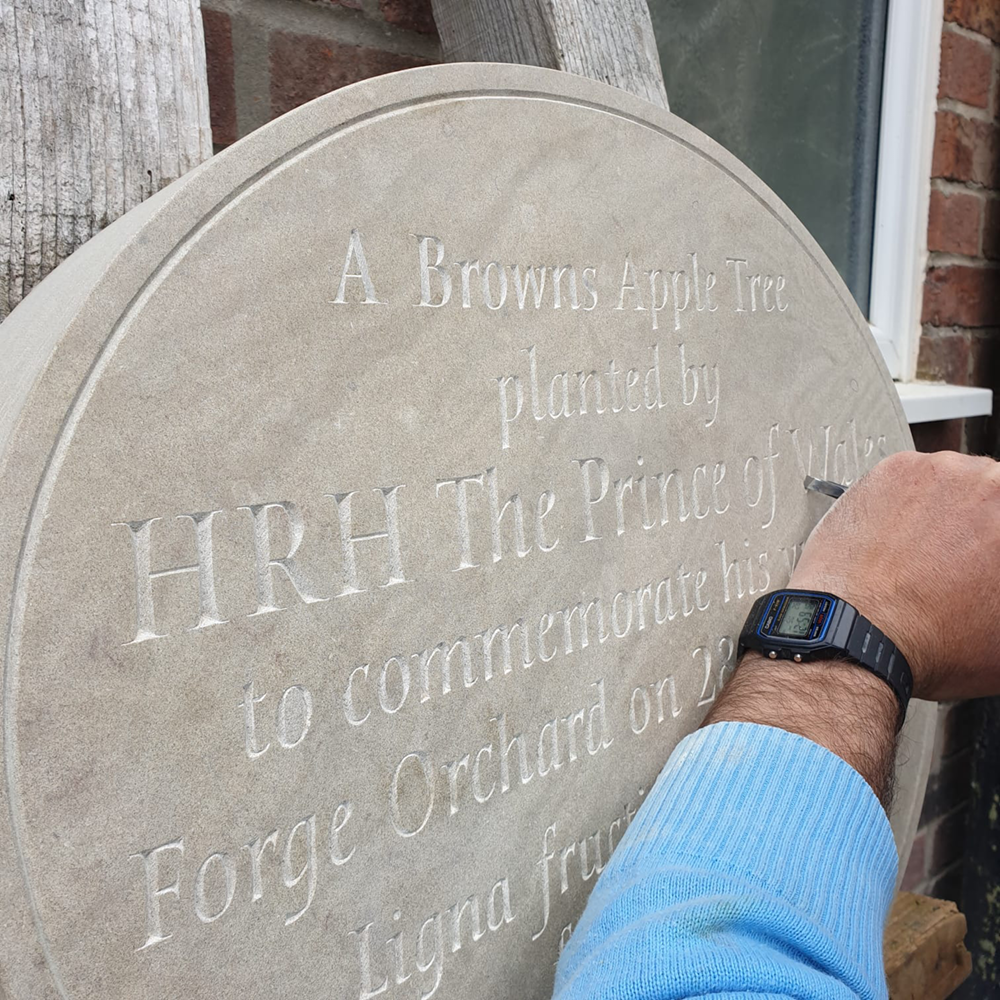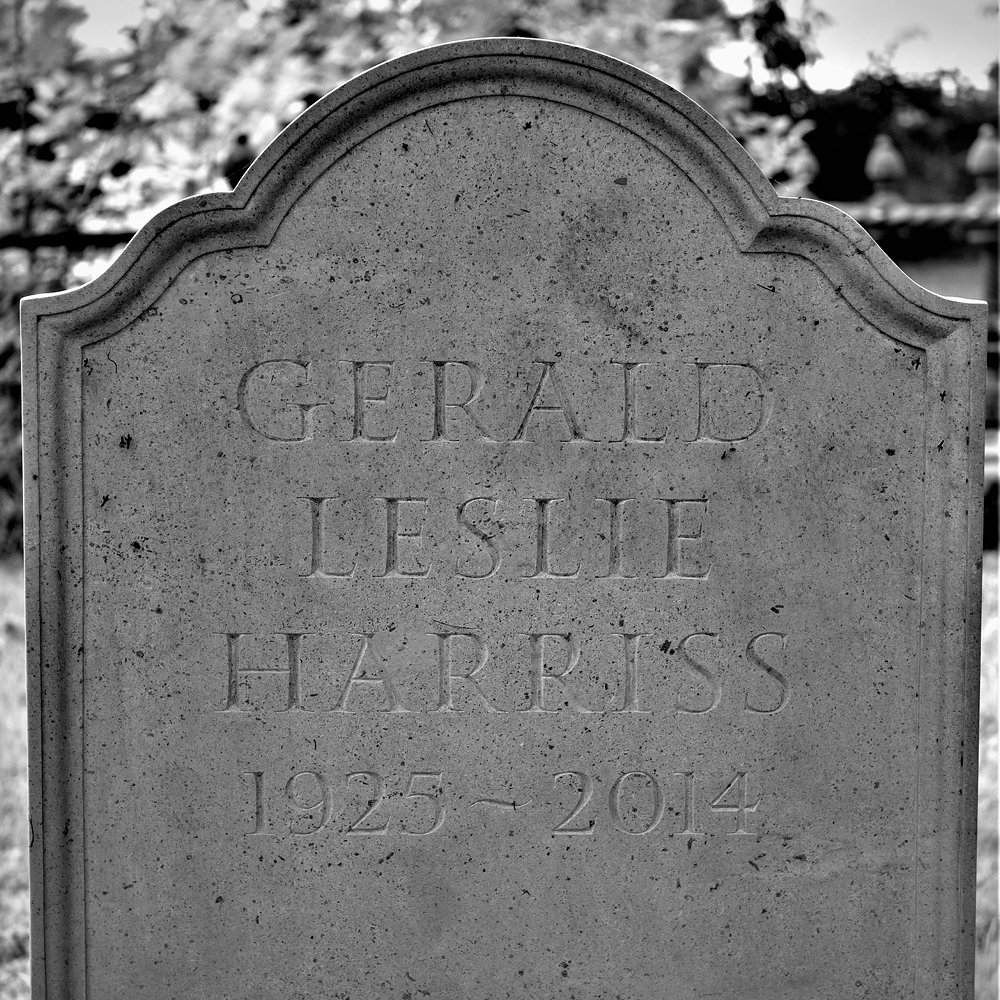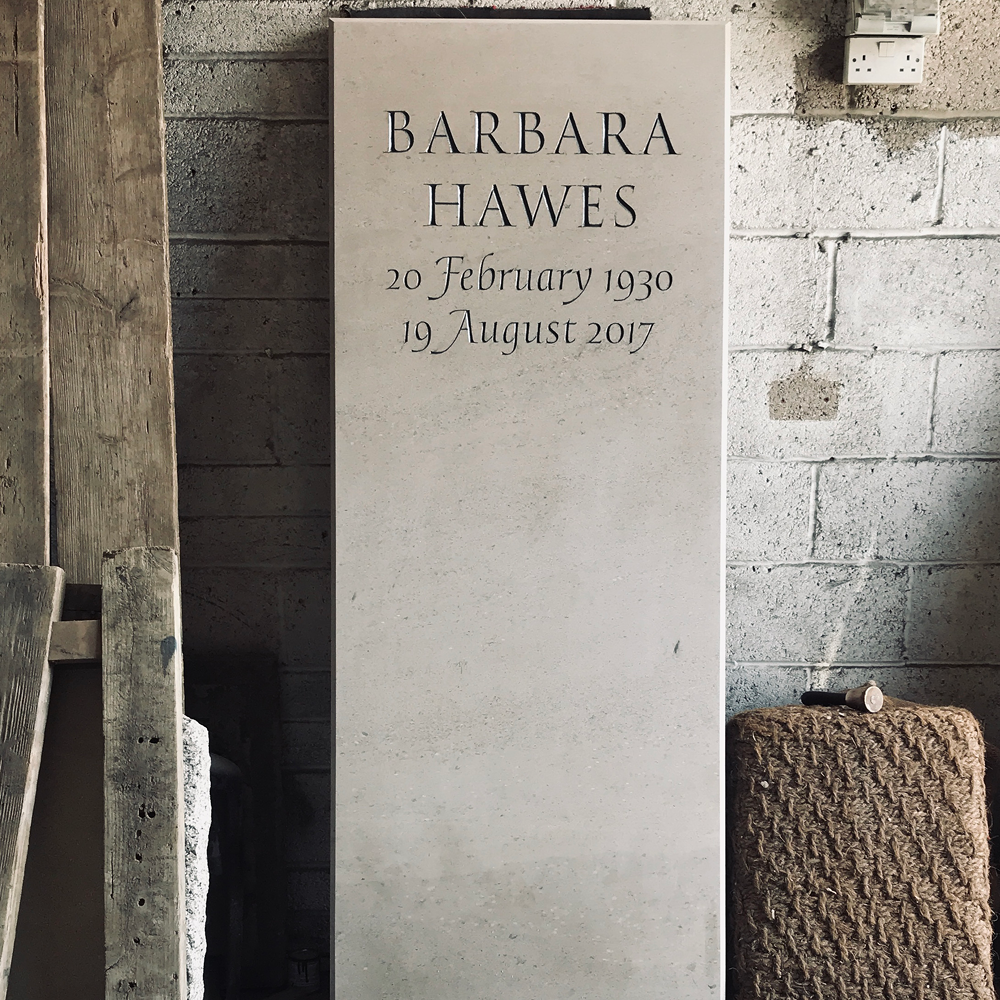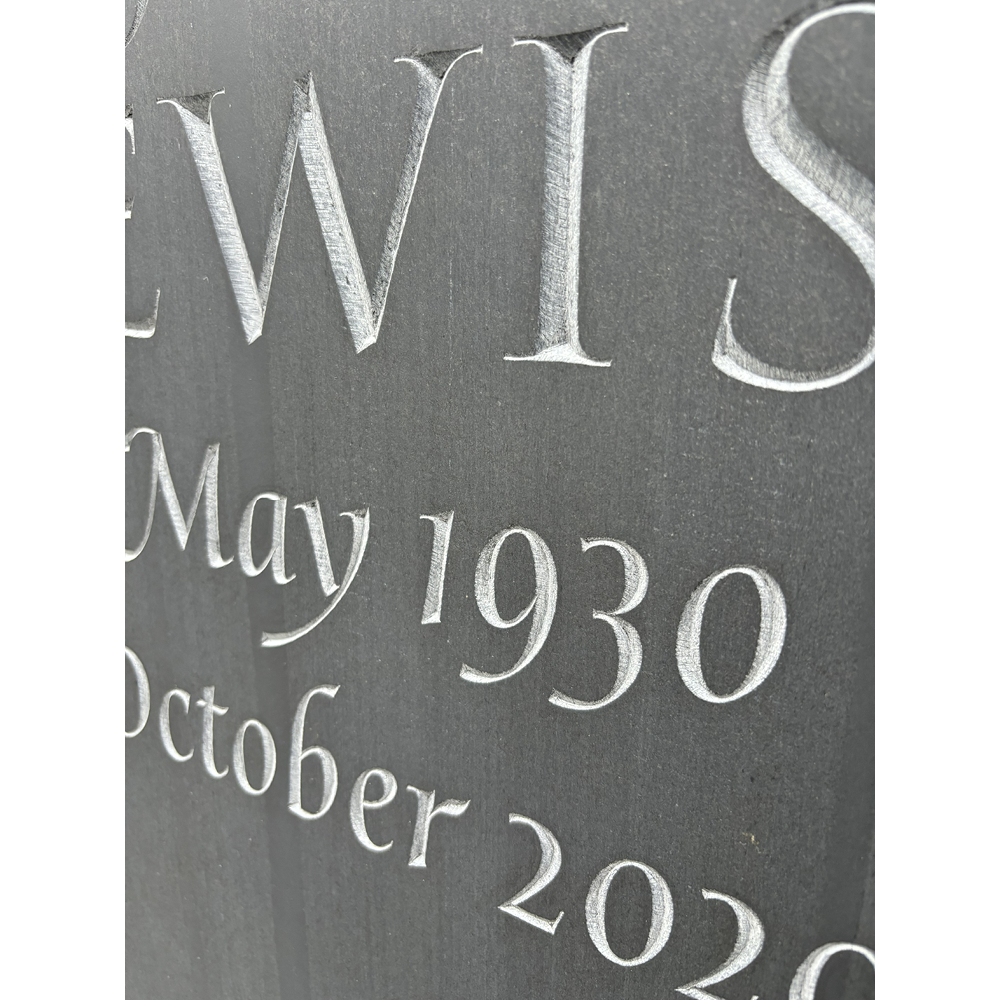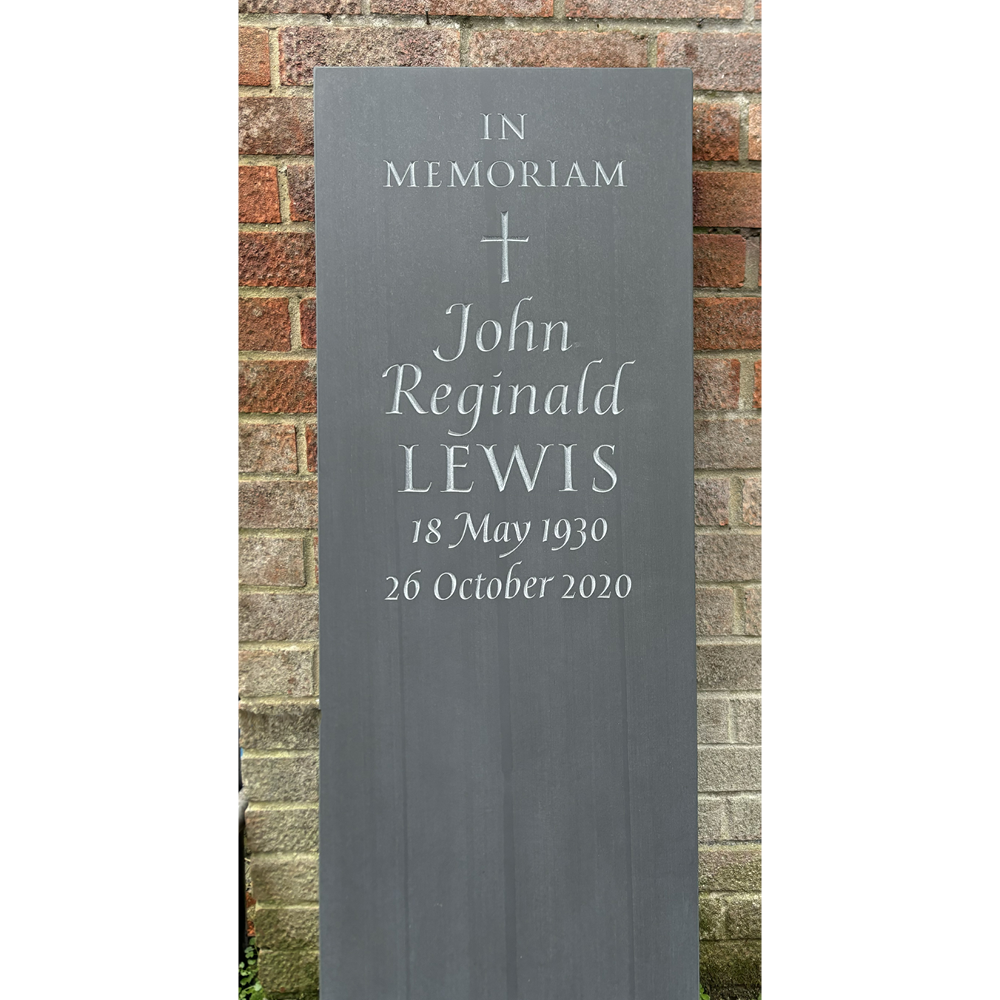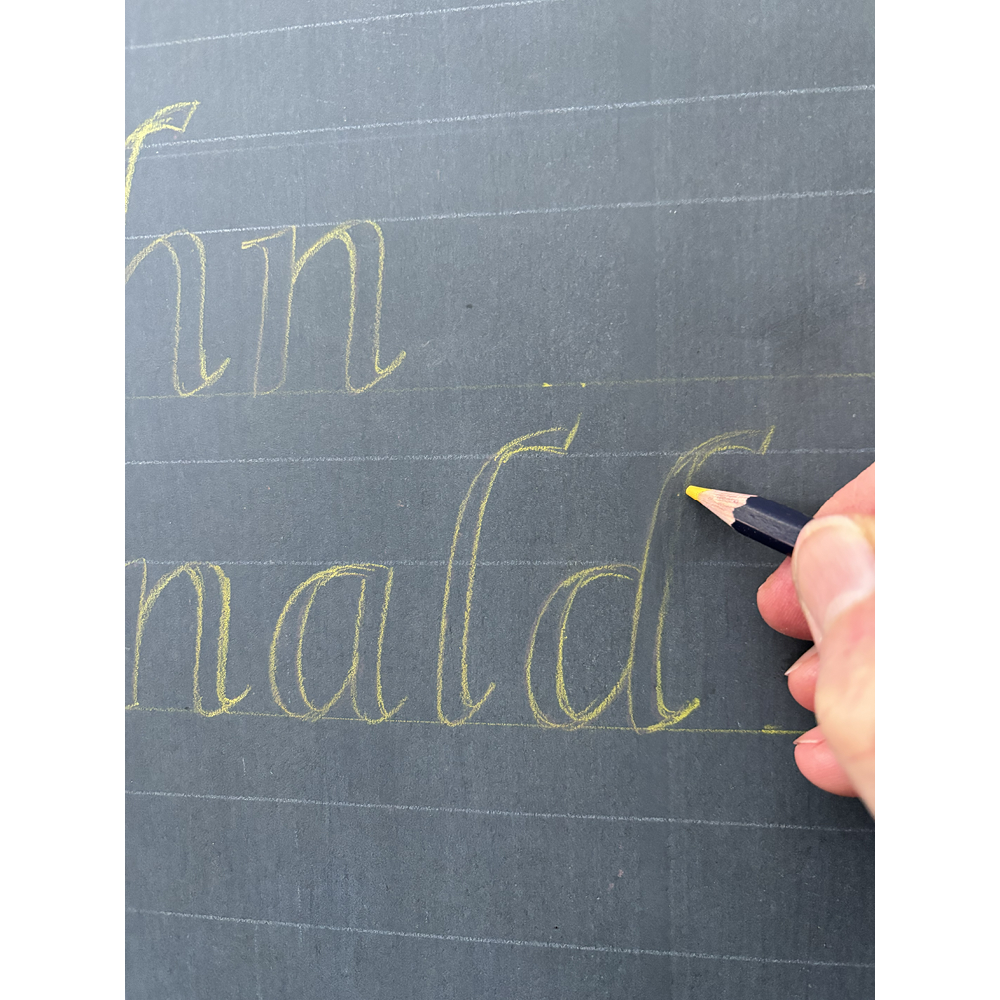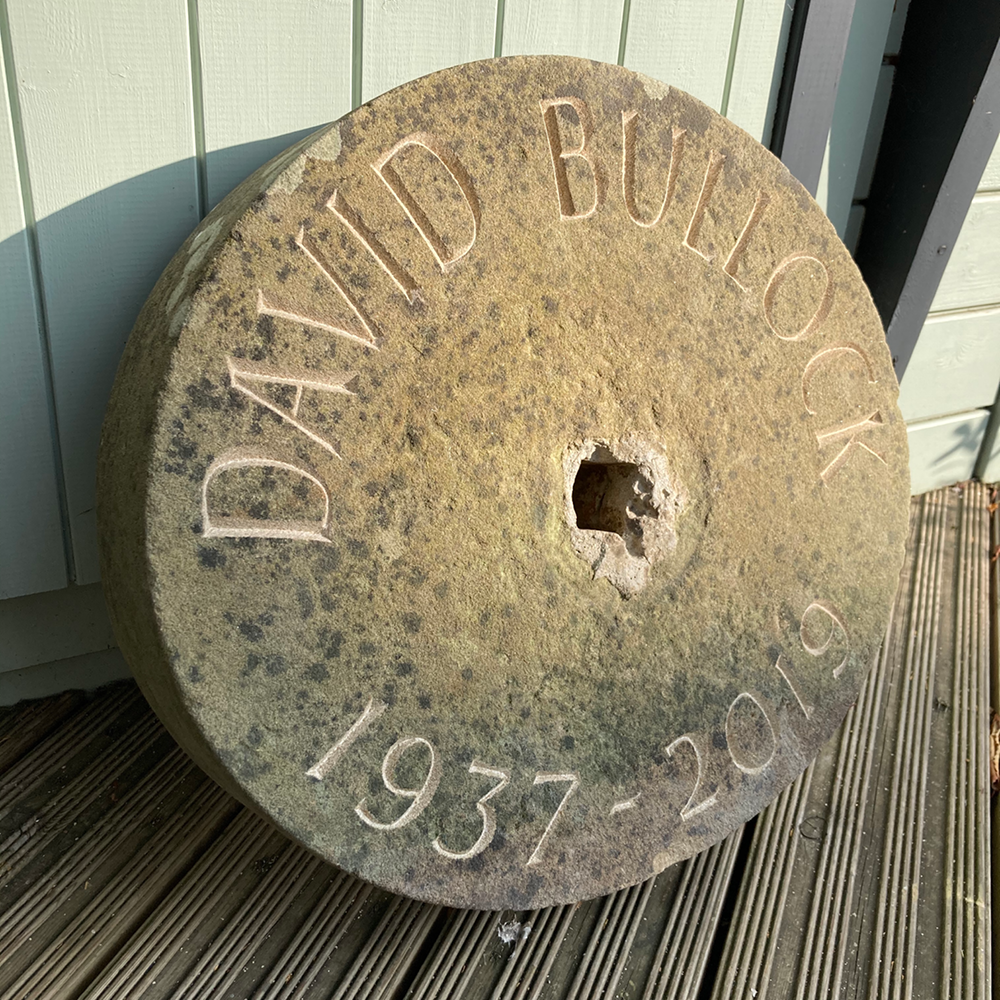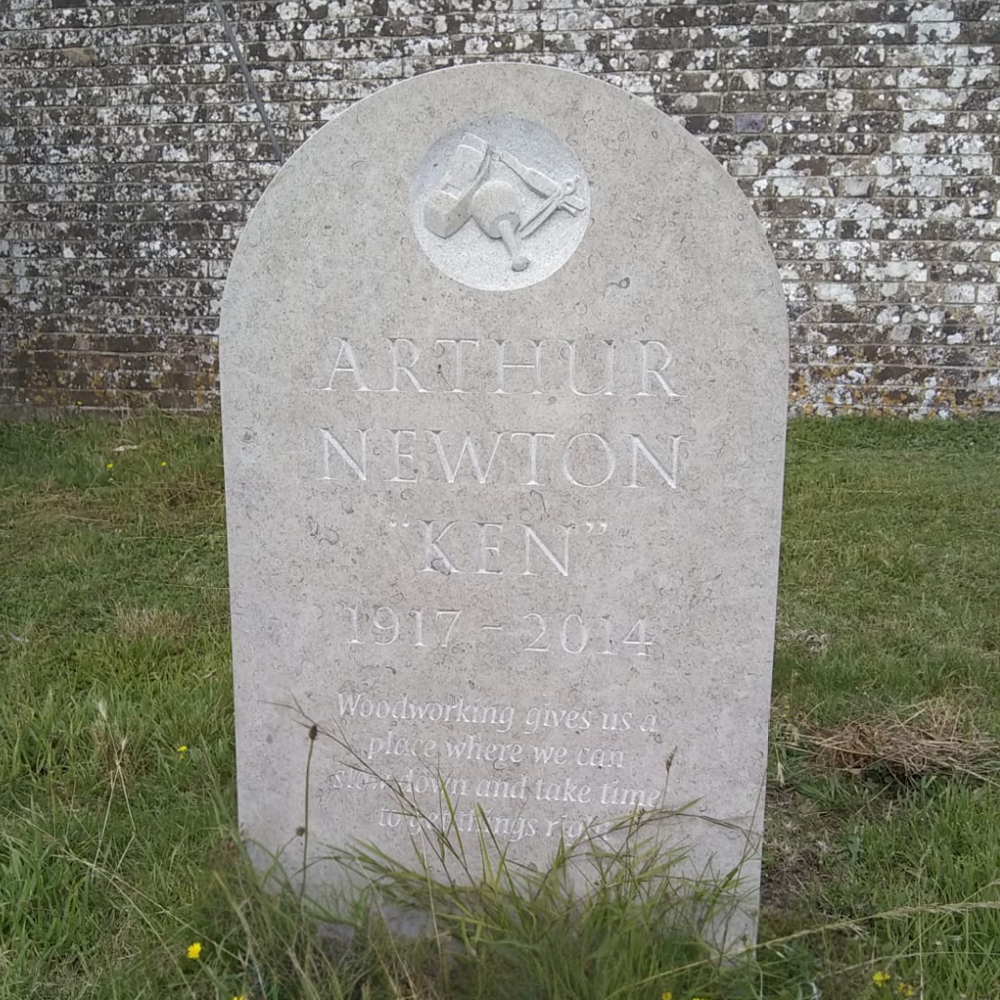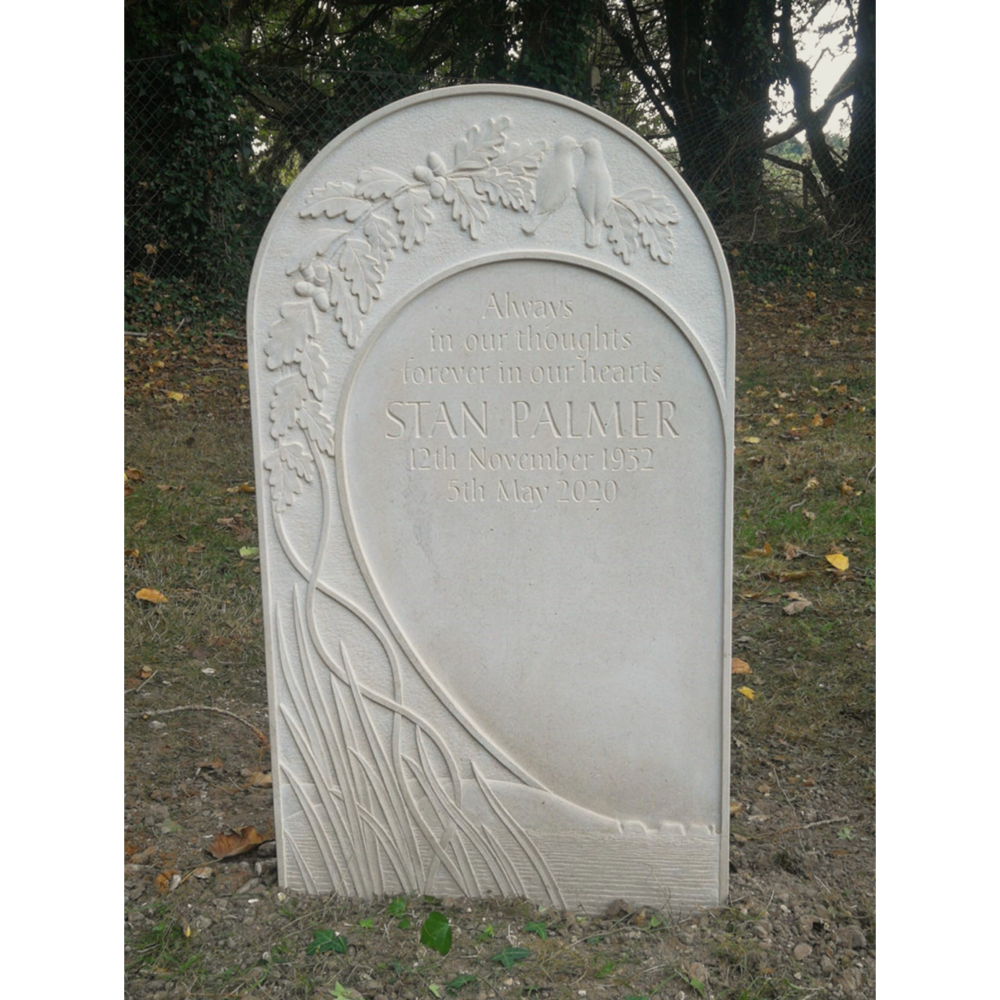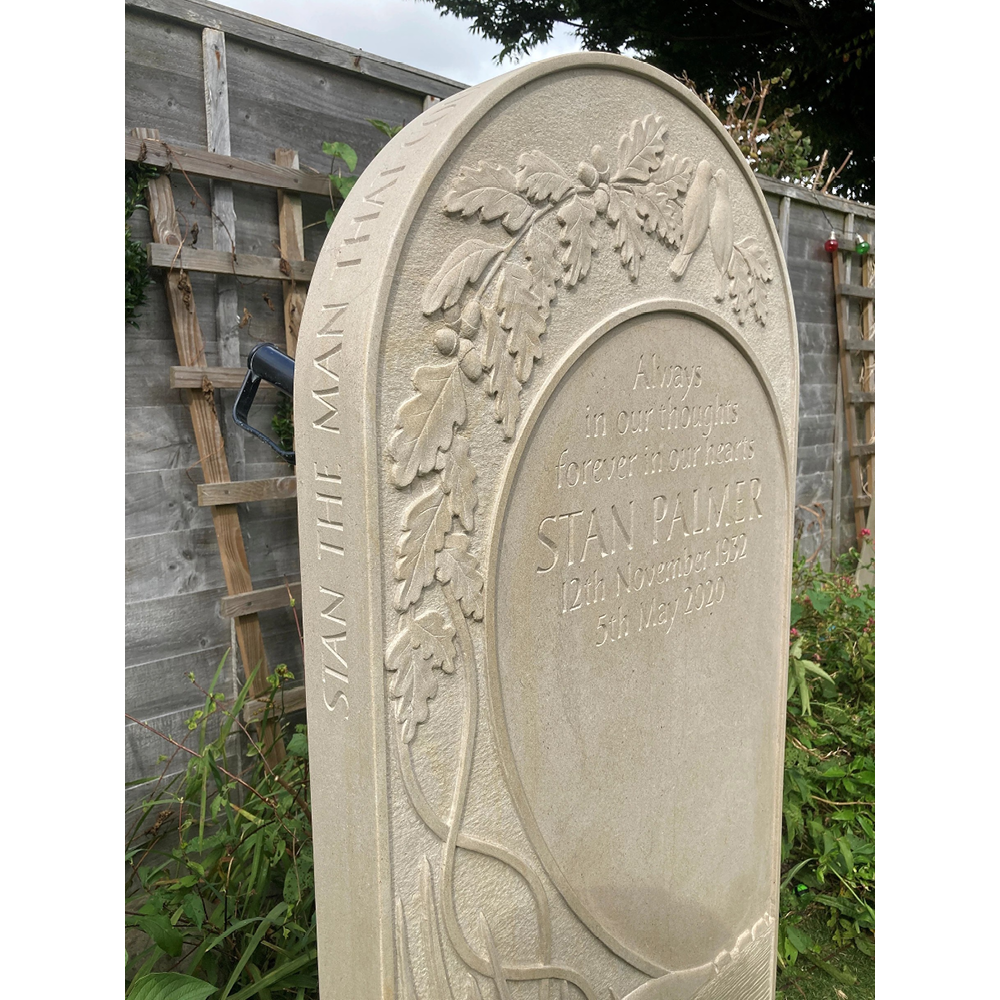
I have been carving letters since leaving college in 1995. I worked for Belinda Eade, an artist based in London who inspired me to have a more artistic approach to memorials.
I then had the opportunity to work for lettering artist Martin Cook on the British Museum’s new reading room. I learnt a great deal from Martin about letter forms and design, he gave me memorial work as well as his knowledge and guidance.
Upon moving back to Dorset in 2001, my college lecturer, letter carver Andrew Whittle, provided some interesting work especially the Animals in War monument in London which stands out as it meant living for five weeks in a caravan in the middle of Park Lane.
My main ethos is to create a personal memorial – not working from a brochure and fitting the inscription to a commercial shape. I believe that the words lead to the design of the entire memorial to create a bespoke and beautiful memorial for your loved one.